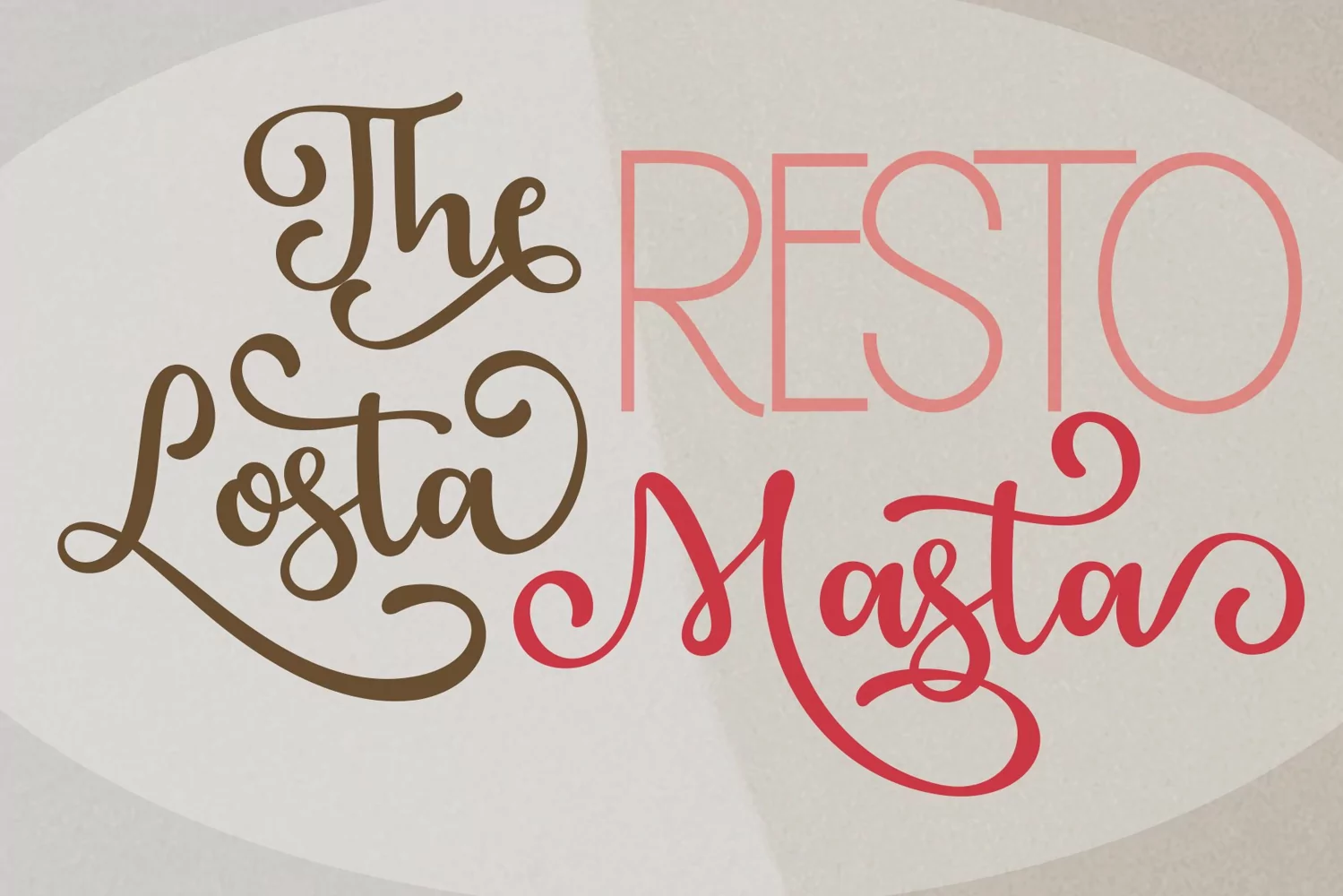
Glaster script is a beautiful calligraphy typeface with a distinctive style of its own. It is a bold, hand font that doesn't have a lot of smudges. It comes with 566 Gliphs,
It's perfect for any type of work you're working various purposes such as logos, wedding invitations, headings, t-shirts, letterheads, signage, labels, news, posters, badges etc.
OpenType features with alternative styles, ligatures, and multiple language support.